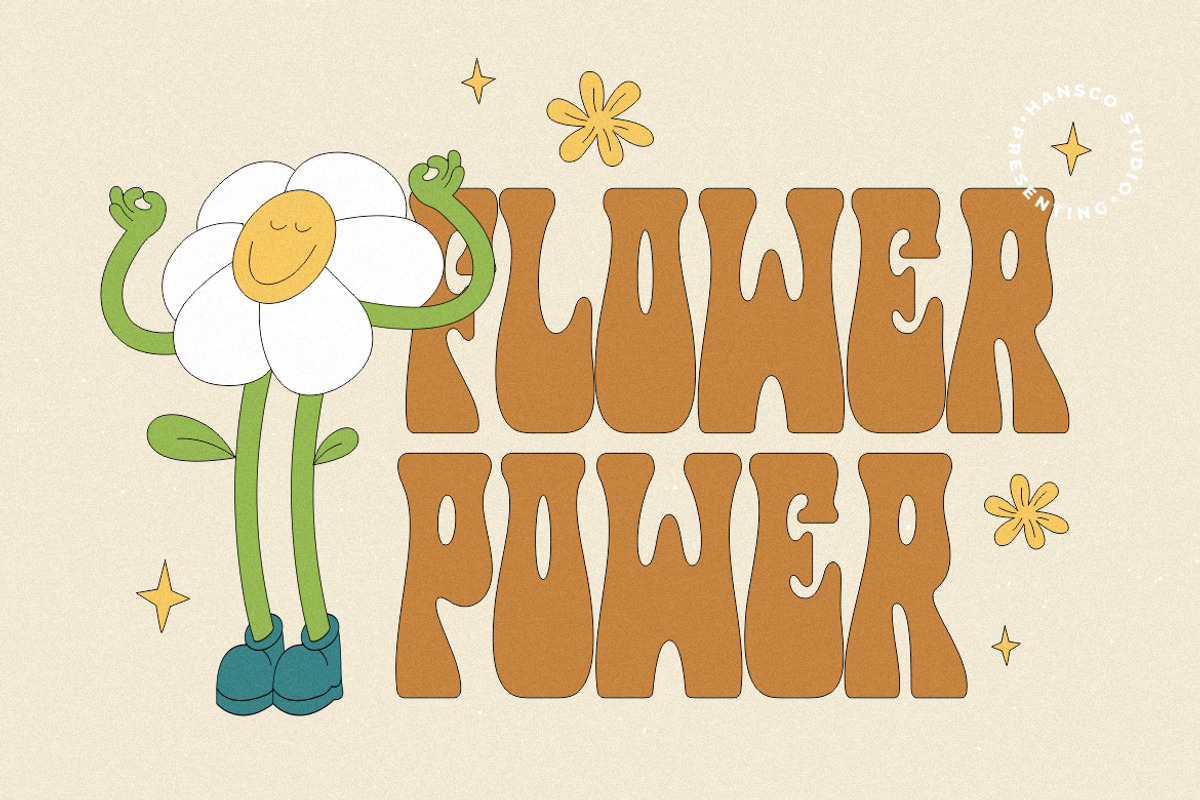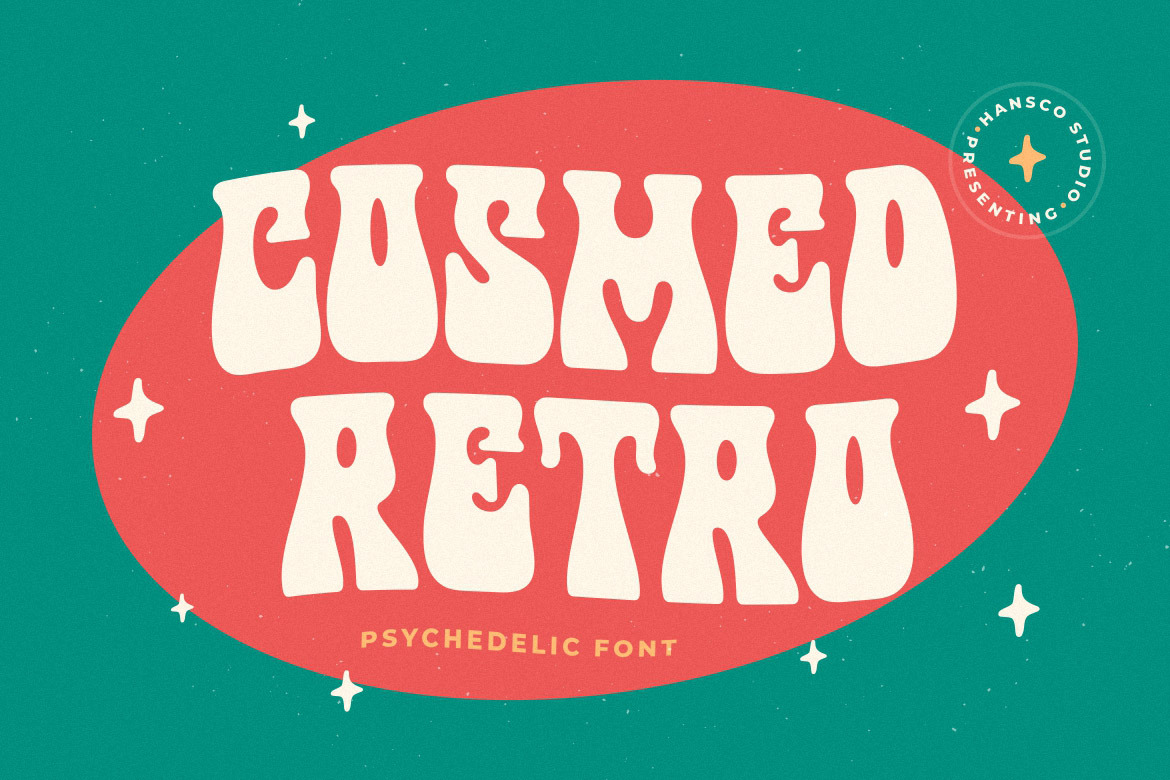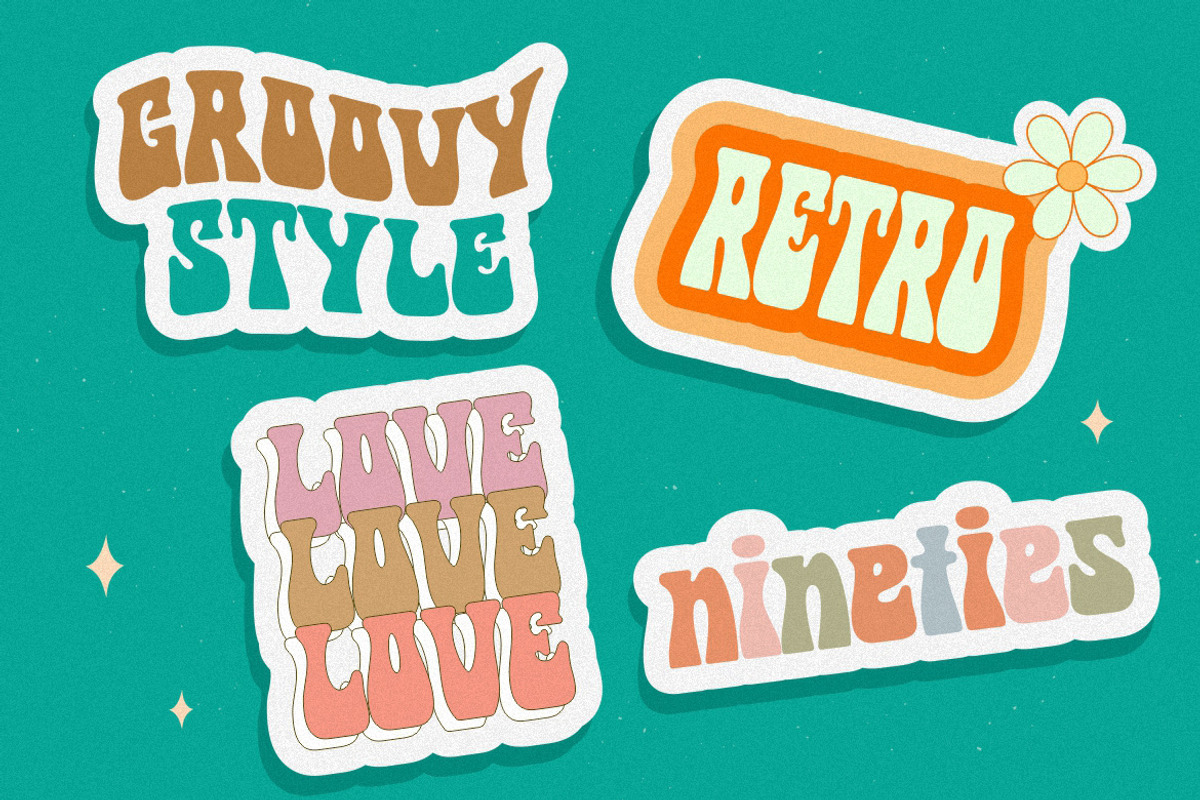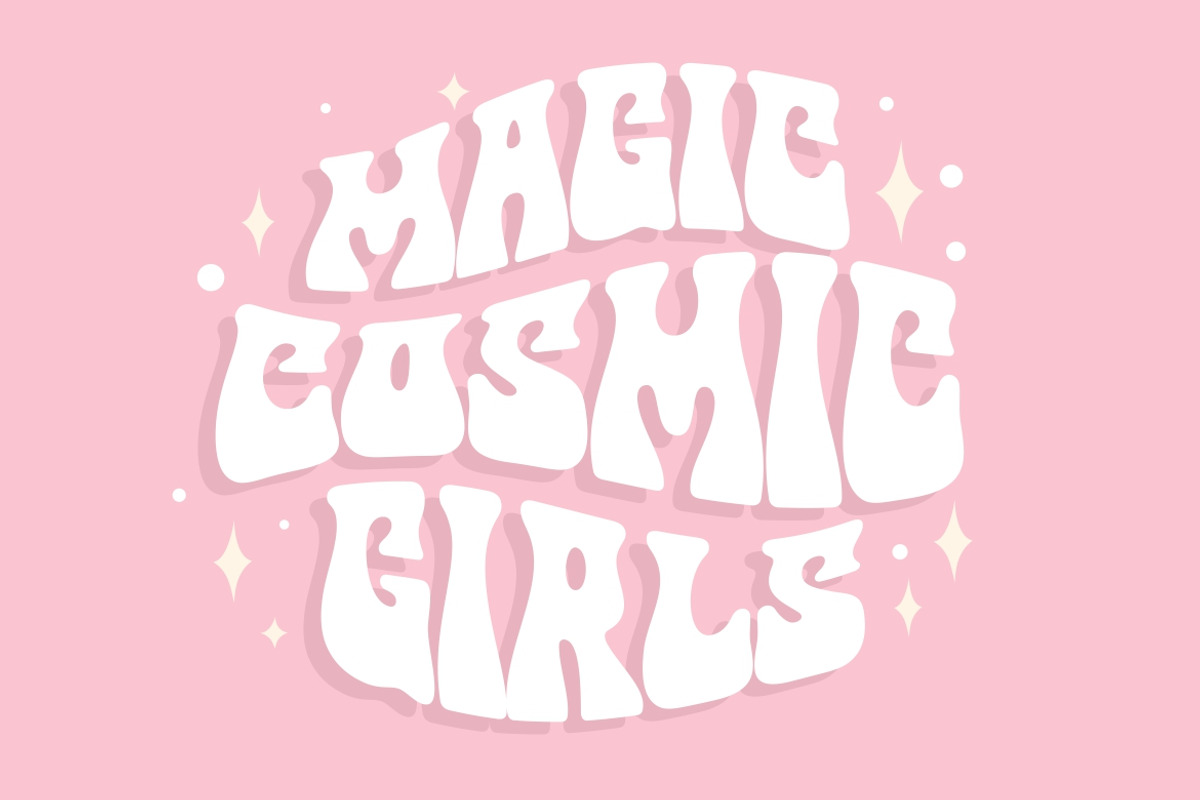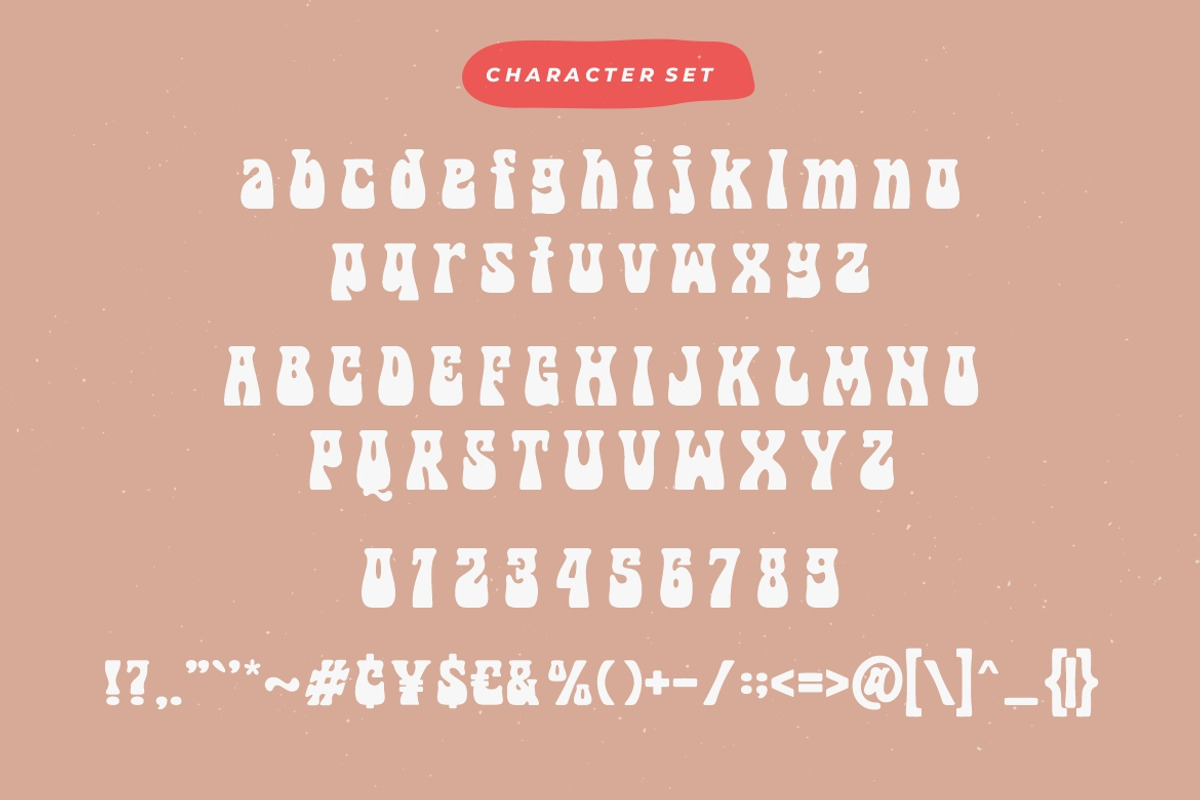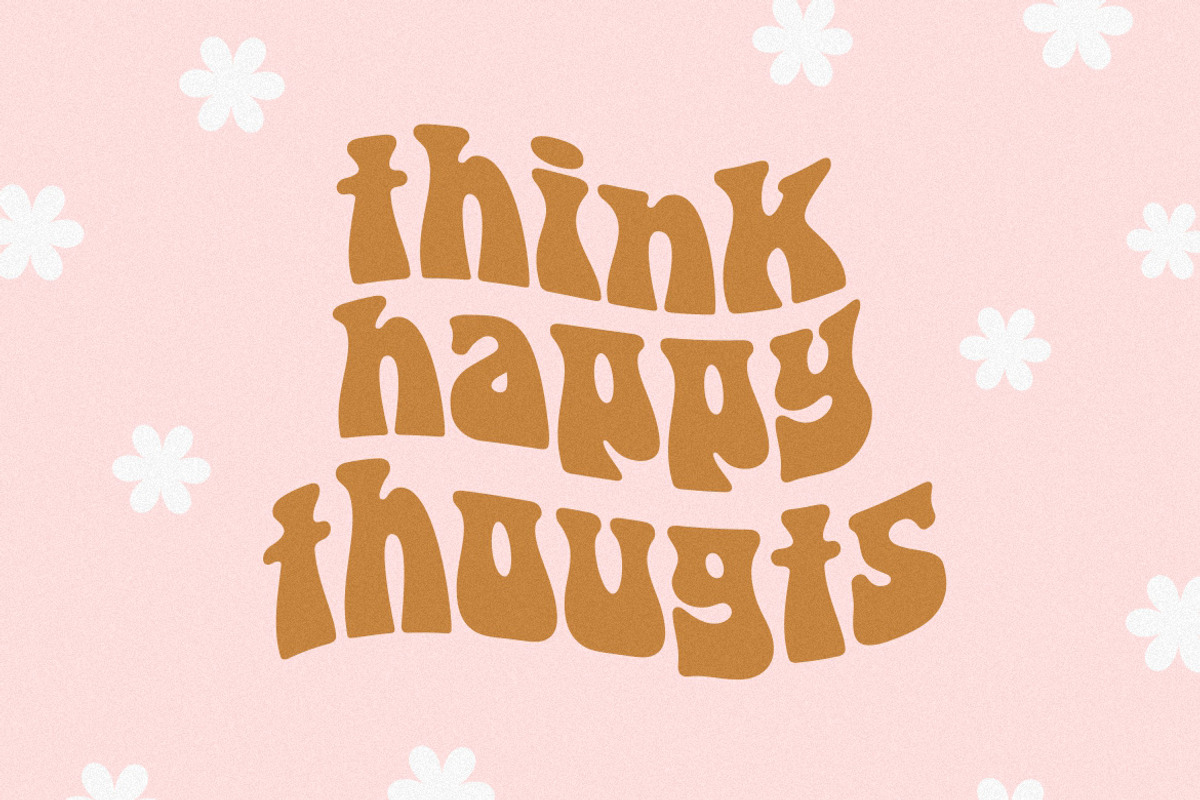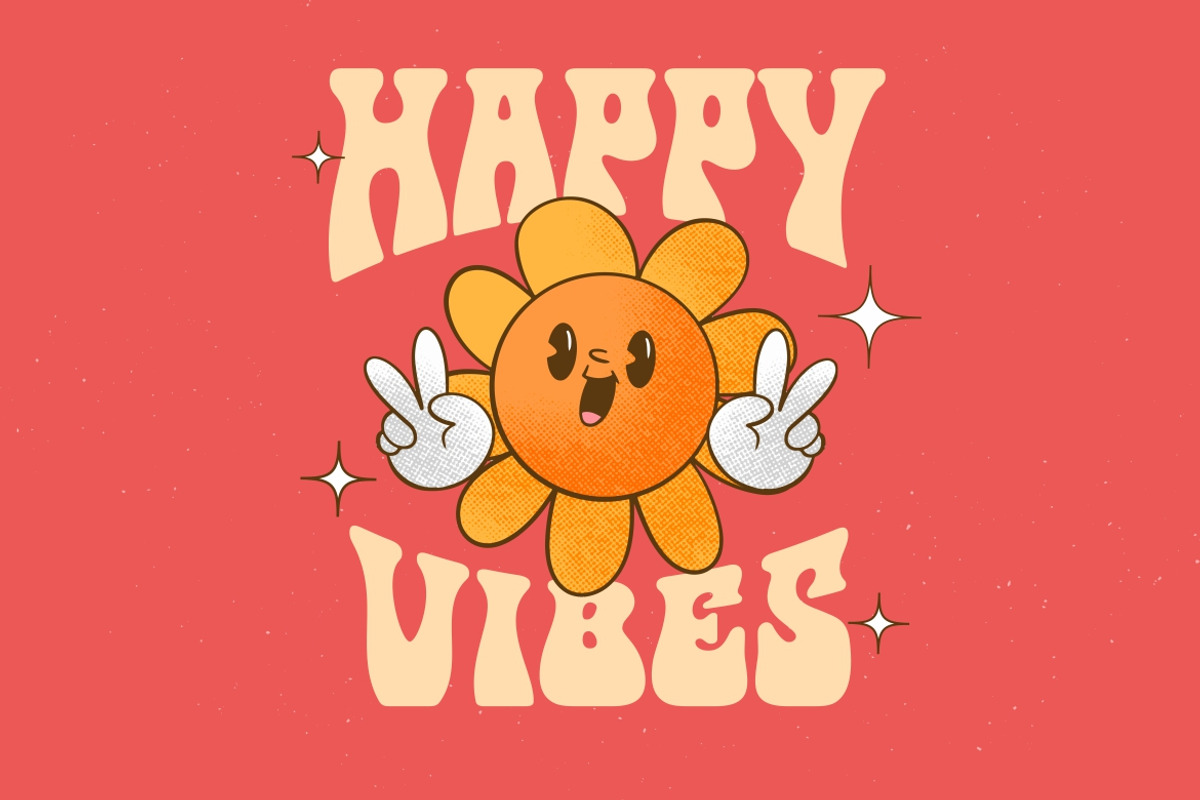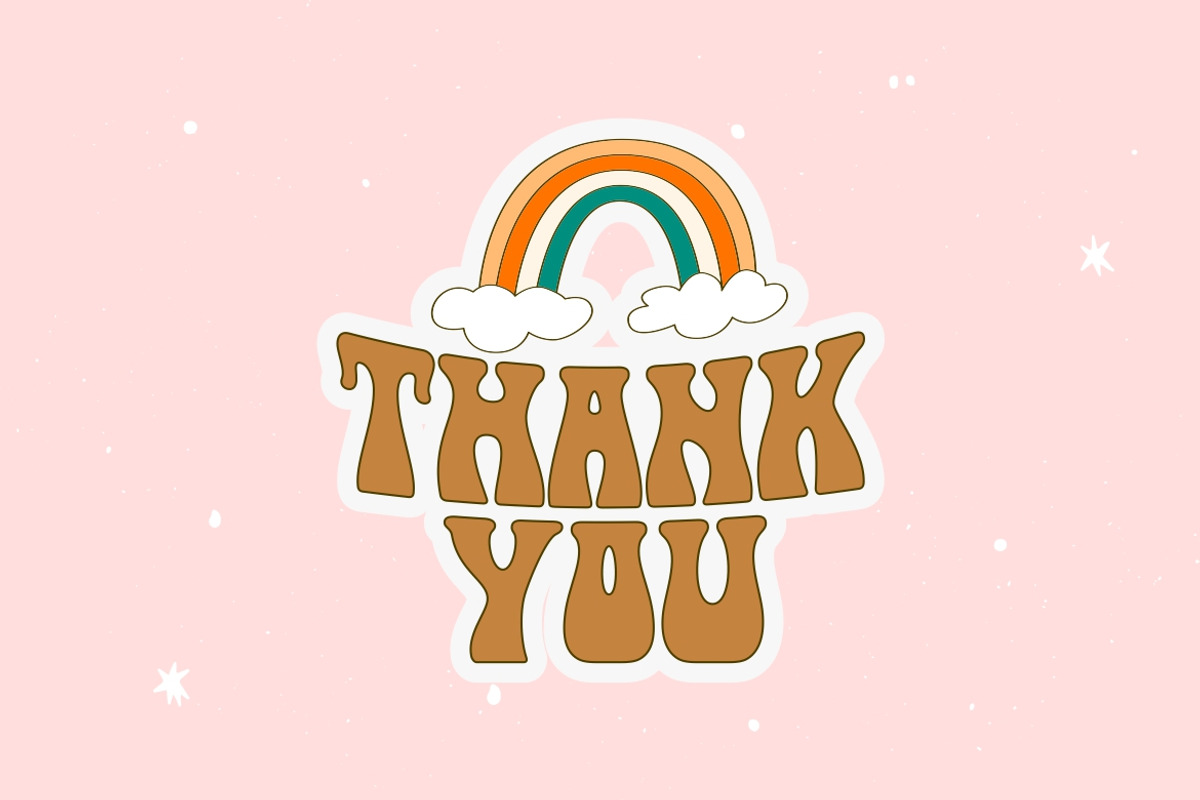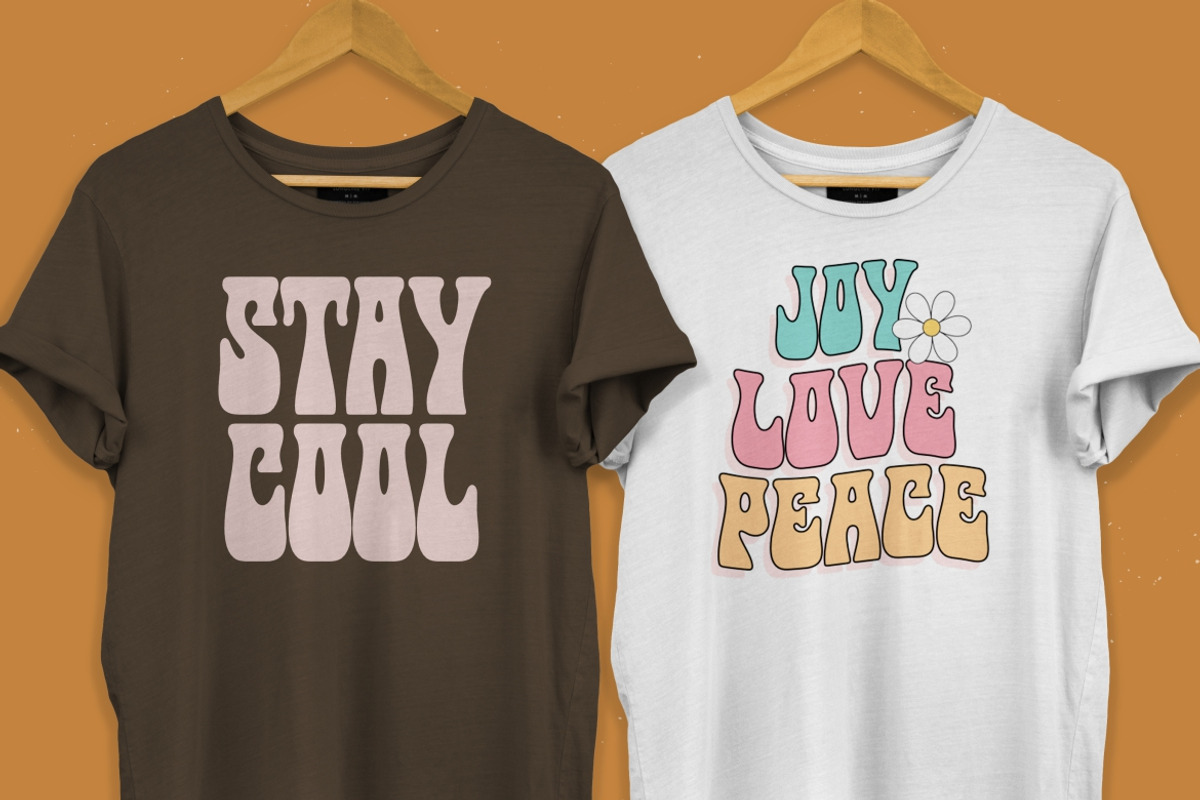
Cosmed Retro - Psychedelic Font
Cosmed Retro font is a retro psychedelic font style with wavy touch. Use this display font to add that special retro touch to any design idea you can think of!